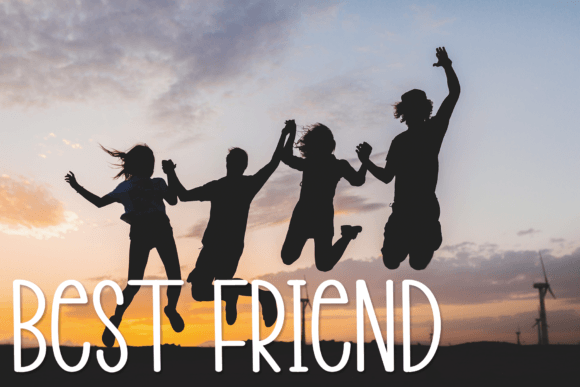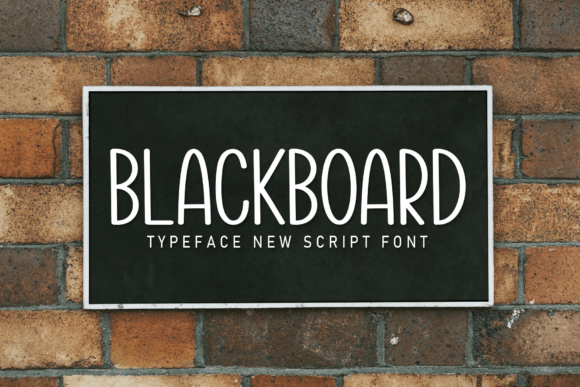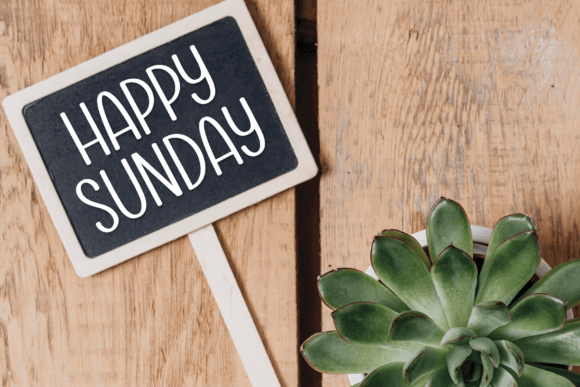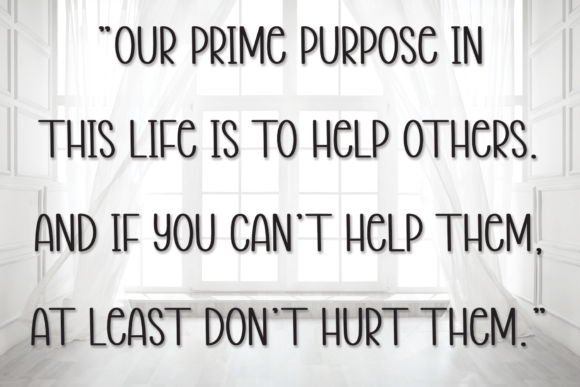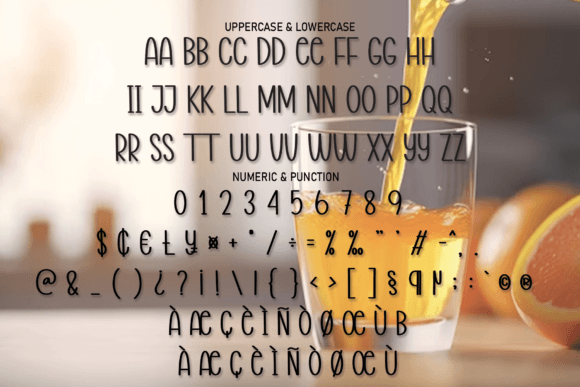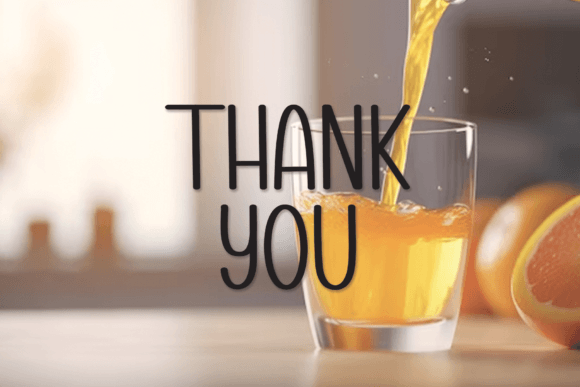
The Sweetest Touch for Your Designs
Have you ever been working on a project, and suddenly, you need that perfect font to bring it all together? You scroll through your font library, but nothing seems to fit. That’s when the magic happens – you stumble upon a font that changes everything. For many designers, this moment is like finding the perfect match – it’s a game-changer.
Enter Honey Juice Font, a flowing handwritten font that adds a casual touch to any project. Its distinct and timeless style is sure to make your designs stand out. Whether you’re a seasoned designer or just starting out, Honey Juice Font is a valuable addition to your toolkit. Its versatility and charm make it perfect for a wide range of projects, from invitations to social media graphics.
Honey Juice Font Key Features
- Font Family: Honey Juice Font is a sans-serif font family designed for modern and elegant typography. It is available in multiple weights, from light to bold.
- Unique Characteristics: Honey Juice Font features a distinctive rounded edge design, giving it a friendly and approachable feel. Its high x-height and open letterforms make it highly legible and easy to read.
Honey Juice Font Review
Honey Juice Font is a lovely, hand-drawn font that exudes a warm, inviting feeling. ✨ I really appreciate the unique character it brings to text-based designs. The rounded edges and soft lines make it perfect for creating a friendly, approachable atmosphere in branding, packaging, or even digital interfaces.
The font’s variations in size and style ✨ make it versatile and easy to work with. It’s great for titles, headings, and body text, and the different weights and styles allow for a lot of creative expression.
- ⚠️ Limited character set: While the font has a decent range of characters, it’s not as comprehensive as some other fonts on the market.
- ⚠️ Not ideal for small text: Due to its rounded design, Honey Juice Font can become difficult to read when used in small sizes.
Overall, I think Honey Juice Font is a great choice for designers looking to add a touch of warmth and personality to their projects. While it may have some limitations, its unique character and versatility make it a solid addition to any font collection.
Tips for Getting the Most Out of Honey Juice Font
1. Experiment with different font sizes and colors to create a unique look.
2. Use Honey Juice Font for titles and headings to add a touch of elegance.
3. Combine Honey Juice Font with other fonts for a creative and eye-catching design.
1. Wedding invitations and stationery
2. Branding and marketing materials
3. Social media graphics and posts